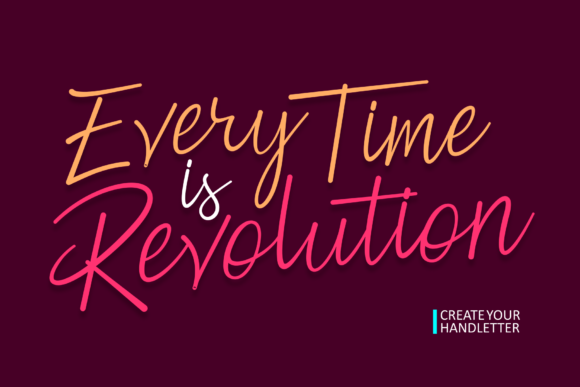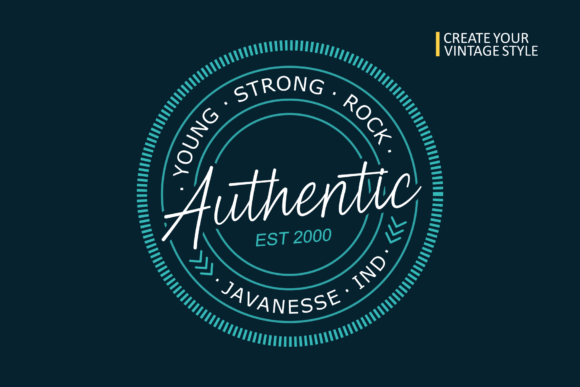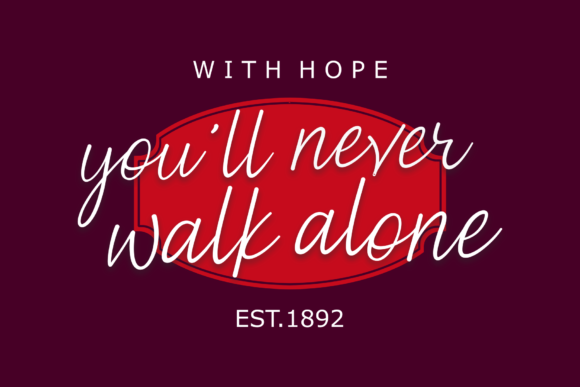
Introduction to Mister Seater Font
Mister Seater is an incredibly authentic and playful script font that will turn any design idea into a true standout.
Mister Seater Font offers exceptional quality and versatility, making it a valuable addition to your design toolkit. Whether you’re creating for personal projects or commercial use, Mister Seater Font delivers professional results.